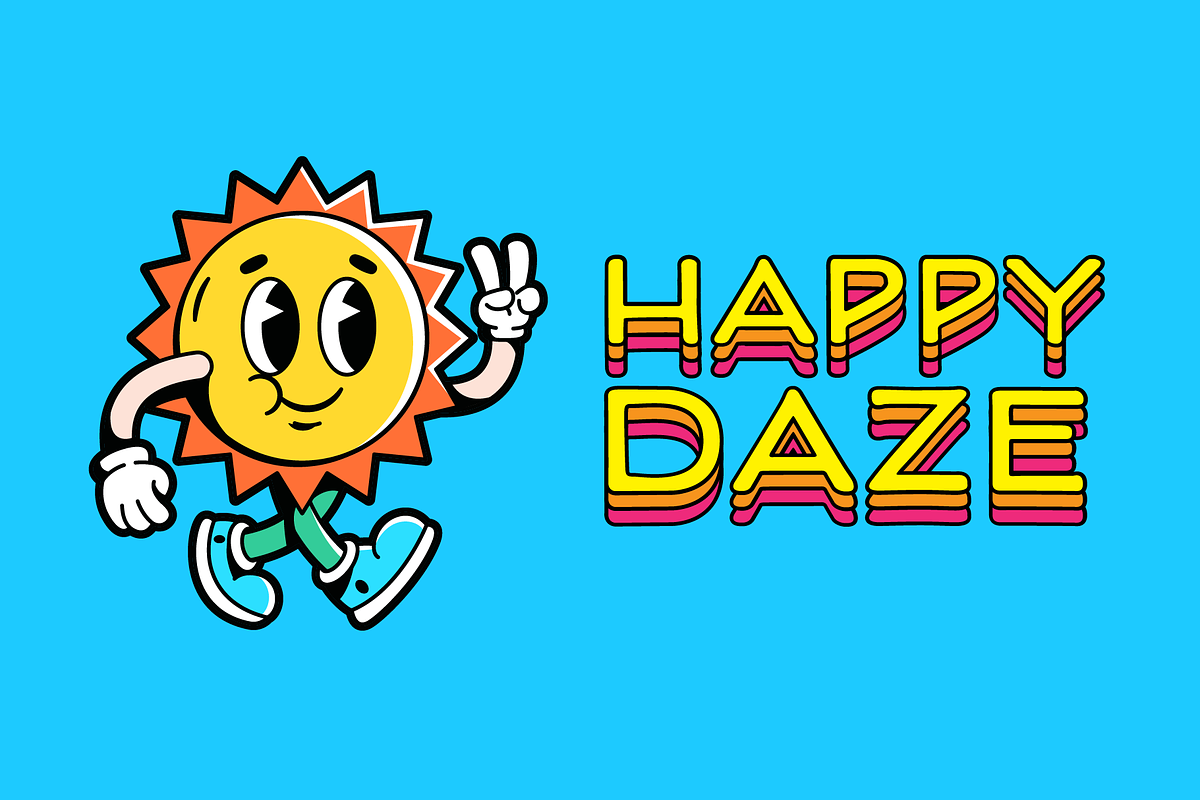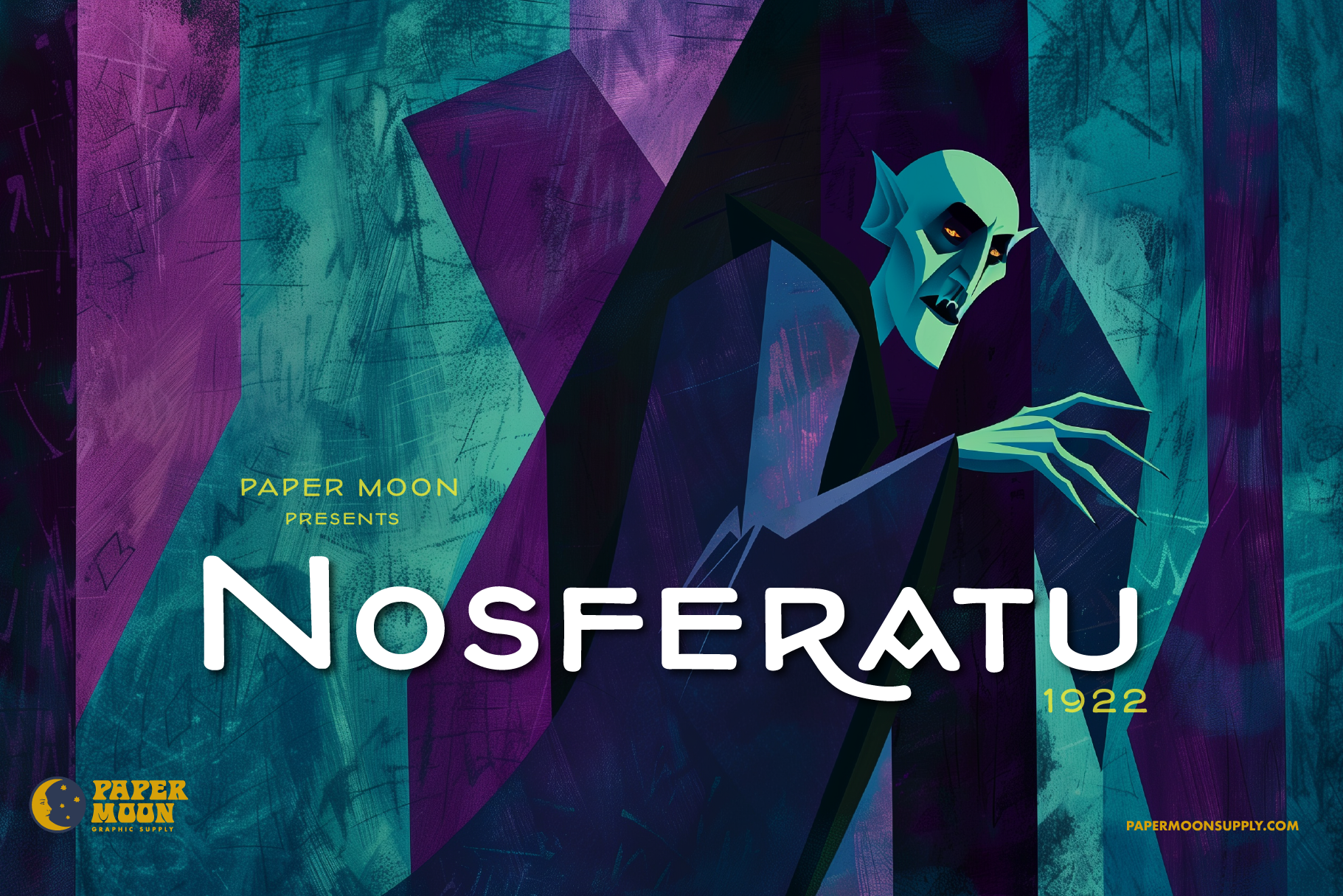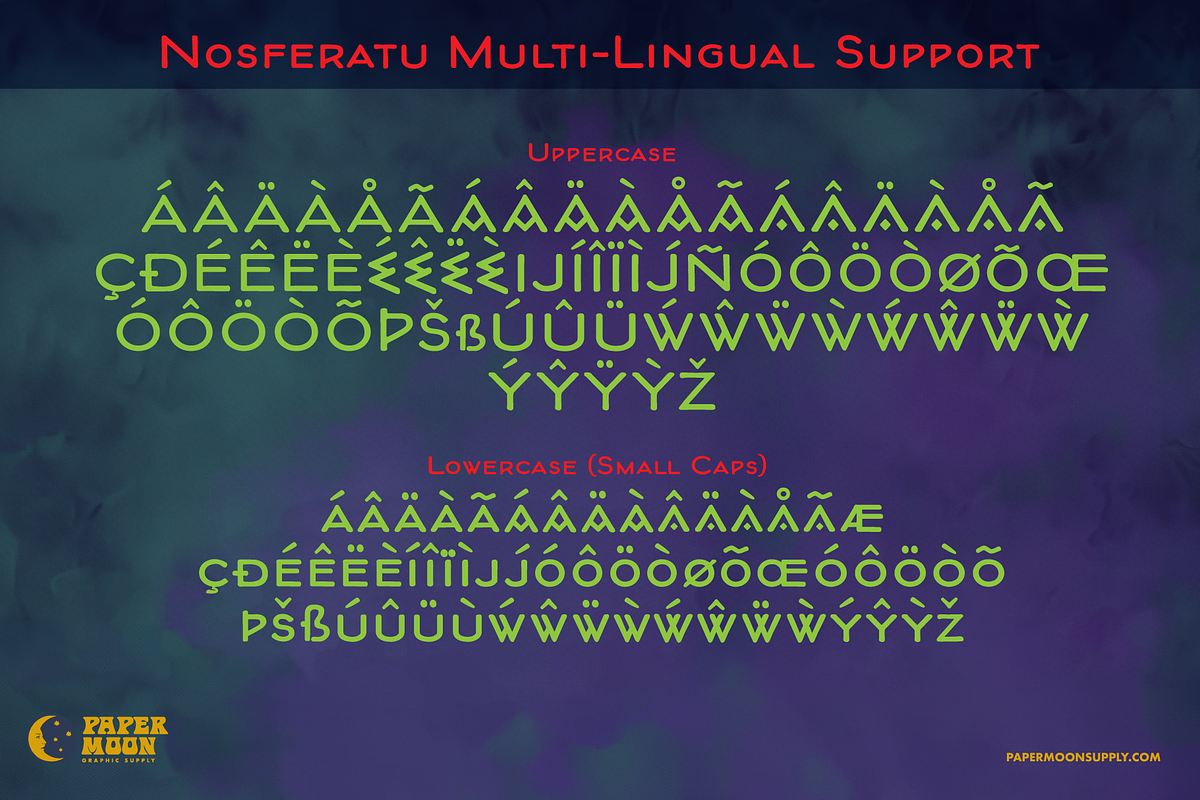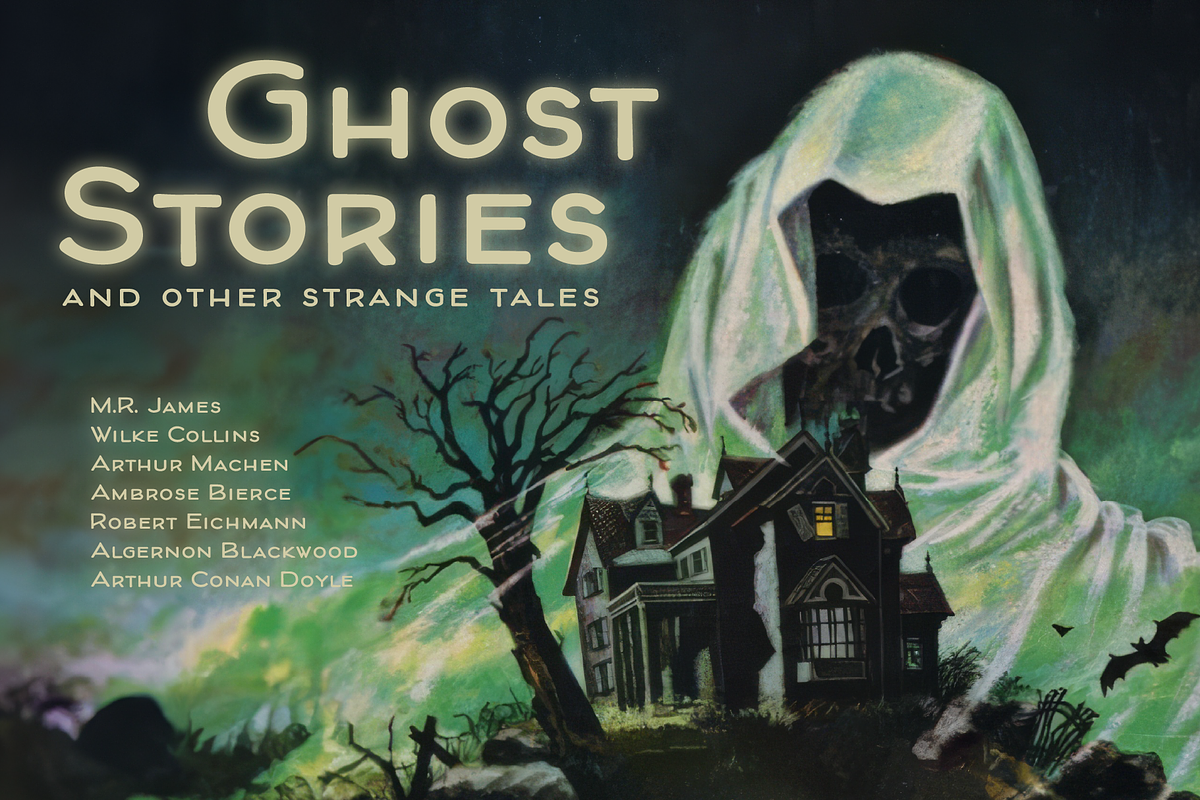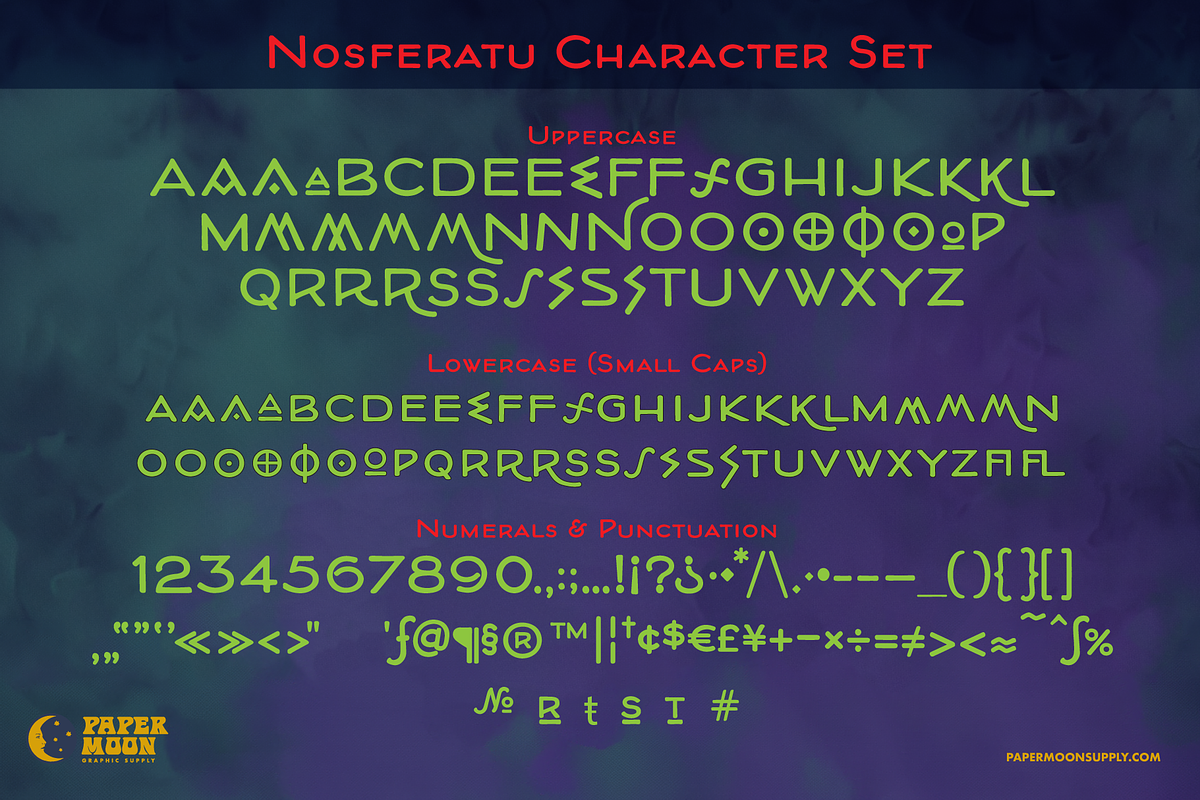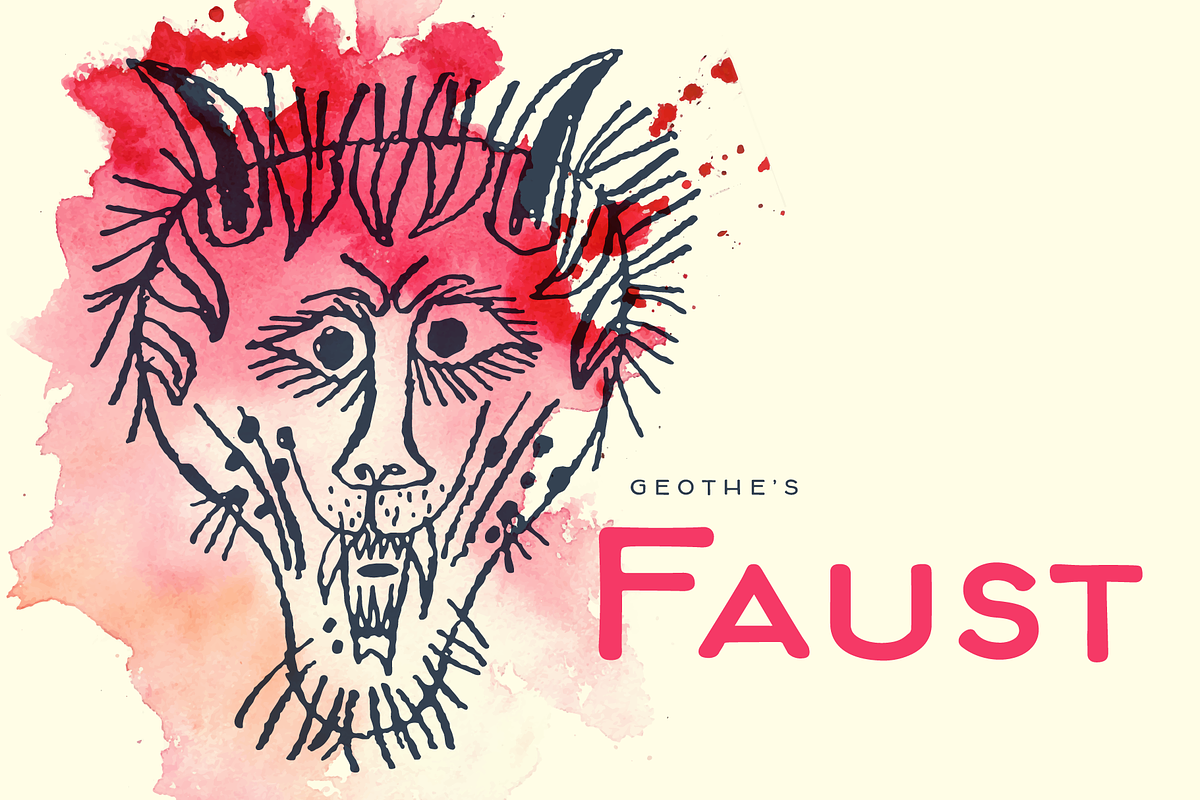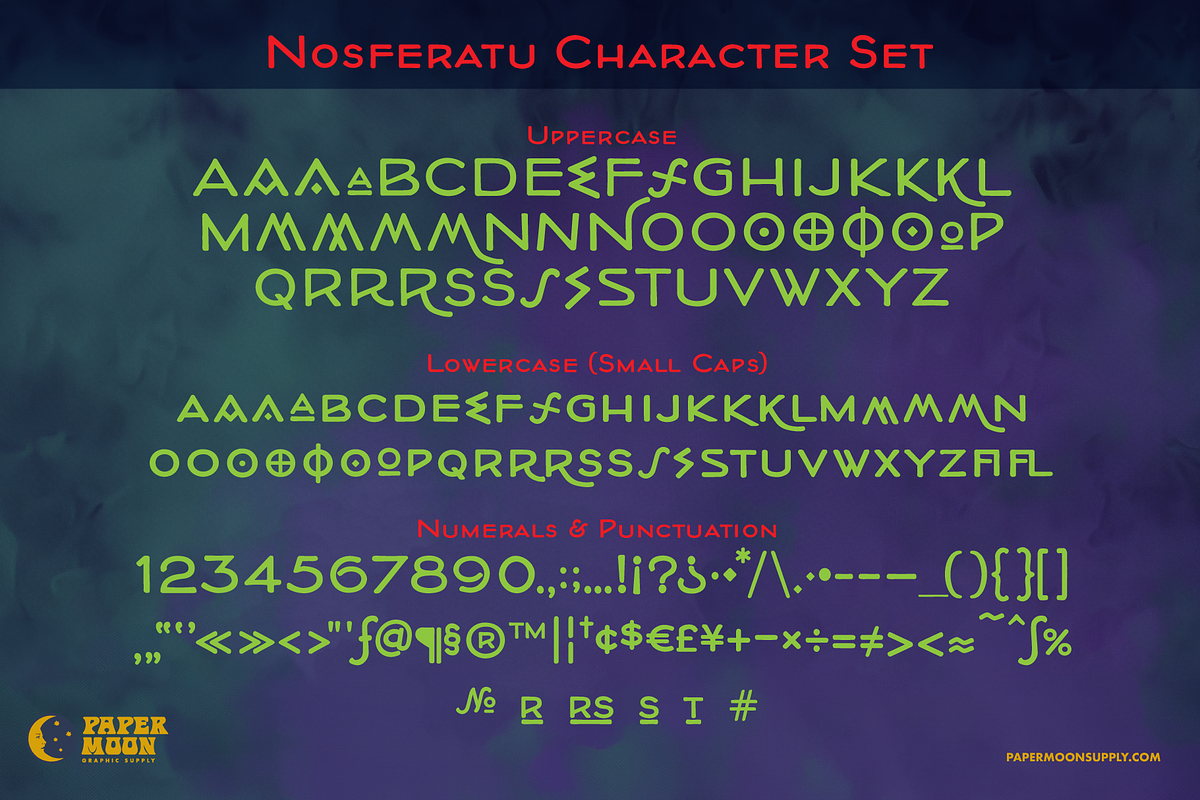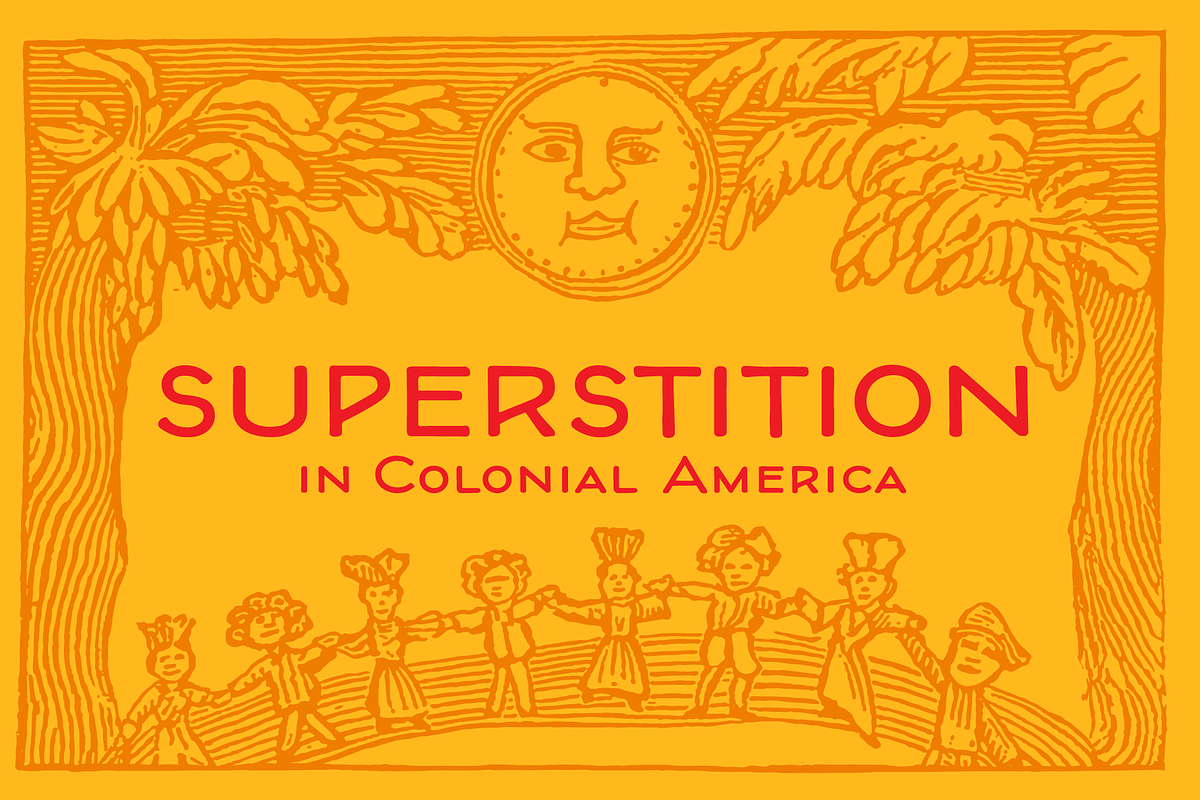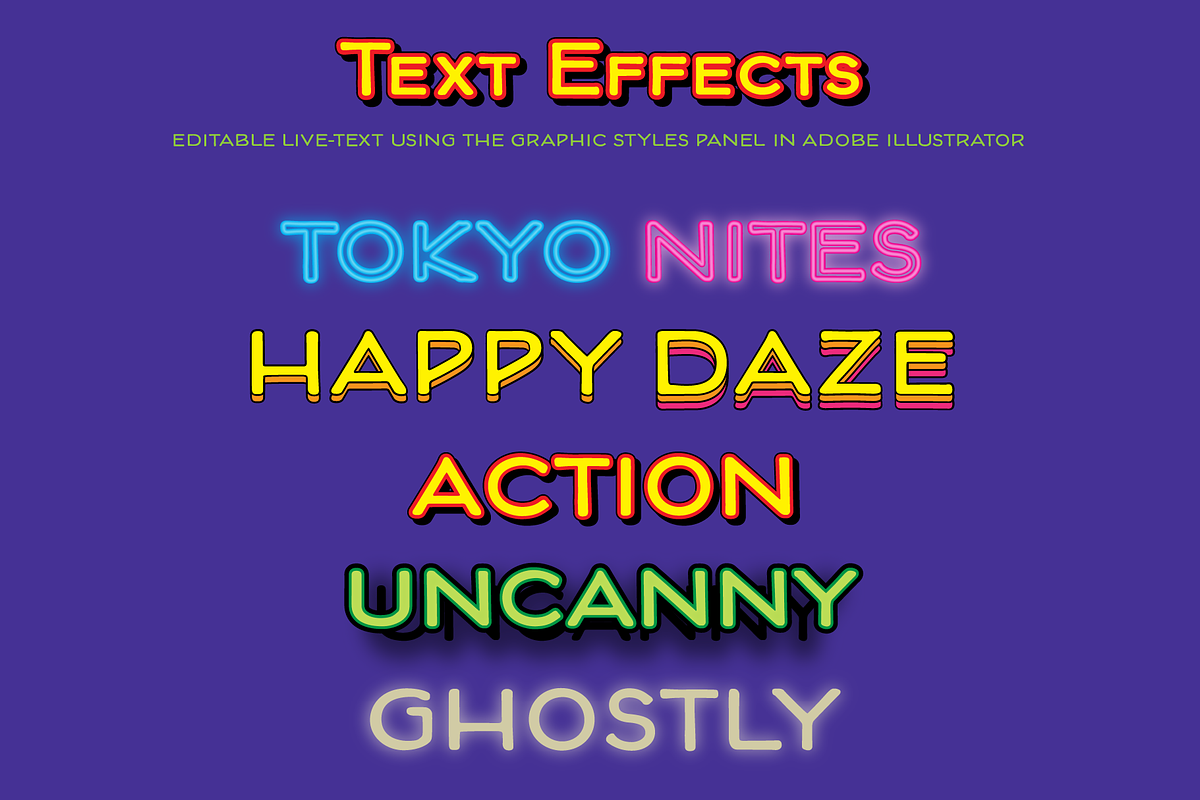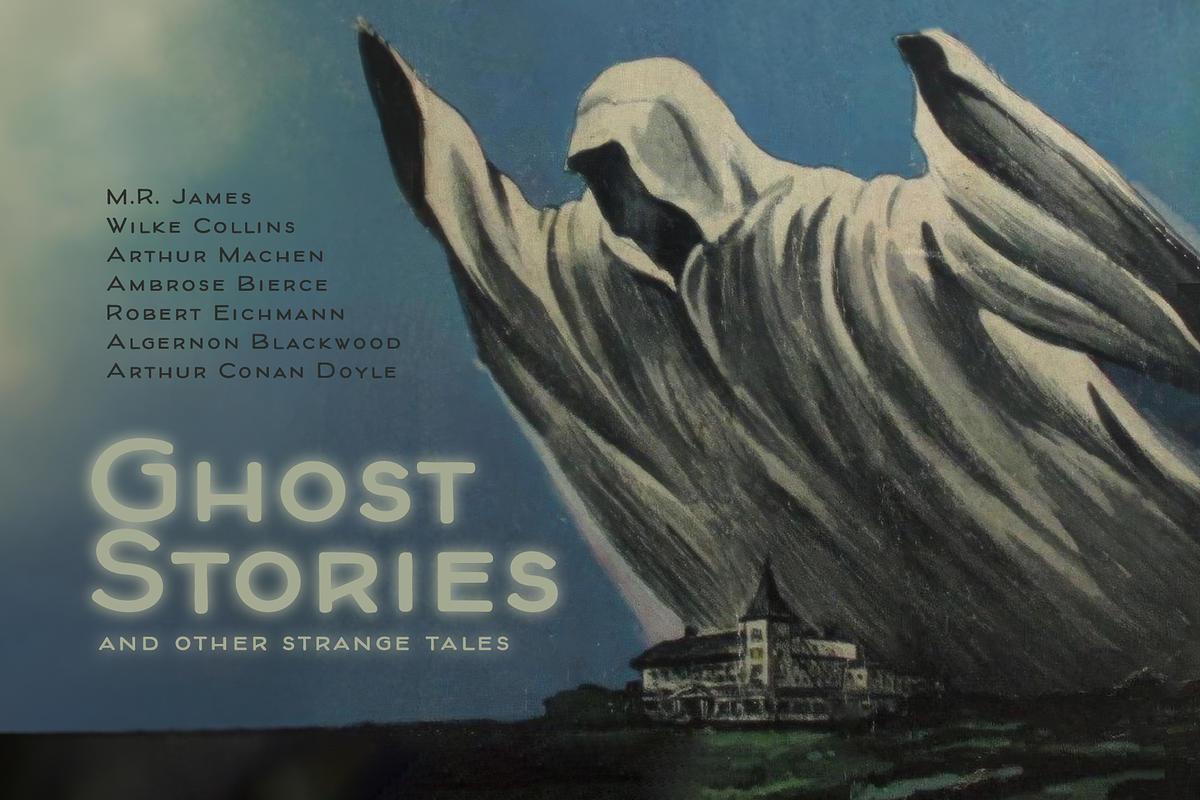
PM Nosferatu 1922 Classic Font
PM Nosferatu - A new vintage horror font from Paper Moon Graphic Supply
PM Nosferatu 1922 is inspired by the hand-lettered text on the poster for the original 1922 Nosferatu movie poster. We've also included alternate glyphs in vintage and modern styles for a broader range of uses.
- Complete alphabet, number, and punctuation sets
- Optimized for OpenType with stylistic alternates
- Five editable live-text effects (graphic styles)